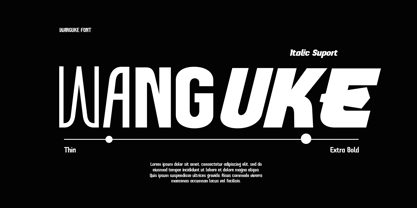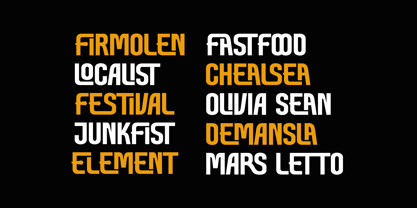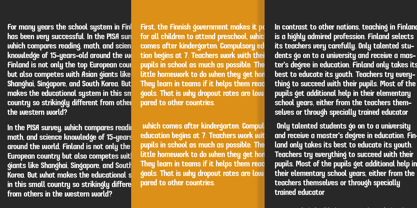
Wanguke Variable
by Laroyba Type
The Wanguke Variable Font Family was designed by Habib Abdur Rofi and published by Laroyba Type. Wanguke Variable contains 2 styles and family package options.
Wanguke Variable Font
Wanguke is a modern and versatile typeface that bridges tradition with innovation. This variable font offers an extensive range of weights and widths, empowering designers to create with flexibility and precision. Its sleek and contemporary style makes it perfect for various applications, including branding, editorial design, websites, and more.
• Dynamic Flexibility: Adjust the weight and width seamlessly to suit any project.
• Timeless Elegance: A design that balances clarity with character, ensuring readability and aesthetic appeal.
• Broad Language Support: Covering a wide range of Latin-based languages, Wanguk is ready to communicate globally.
• Perfect for Professionals: Whether you're designing for print or digital, Wanguk delivers professional-grade results.
Unleash your creativity with Wanguk Variable Font—your ultimate tool for sophisticated typography.